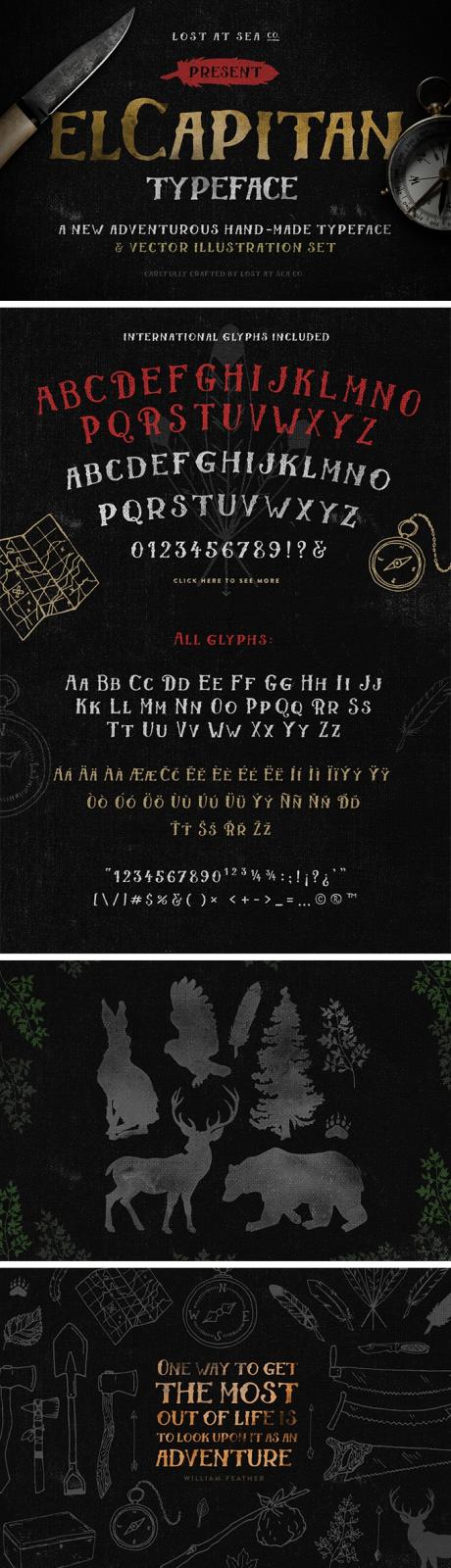
El Capitan Hand-Drawn Font
El Capitan is a new adventurous handcrafted typeface that will give your project a proper vintage look. Grab this decorative font and all aboard to the adventure for more creative projects!
This pirates-inspired font is brought in OTF format along with a hand-drawn vector illustration kit as a nice appendix to the kit. The font supports accented characters and can be used for various purposes such as headings, logos, t-shirt designs, labels, posters, badges and more.